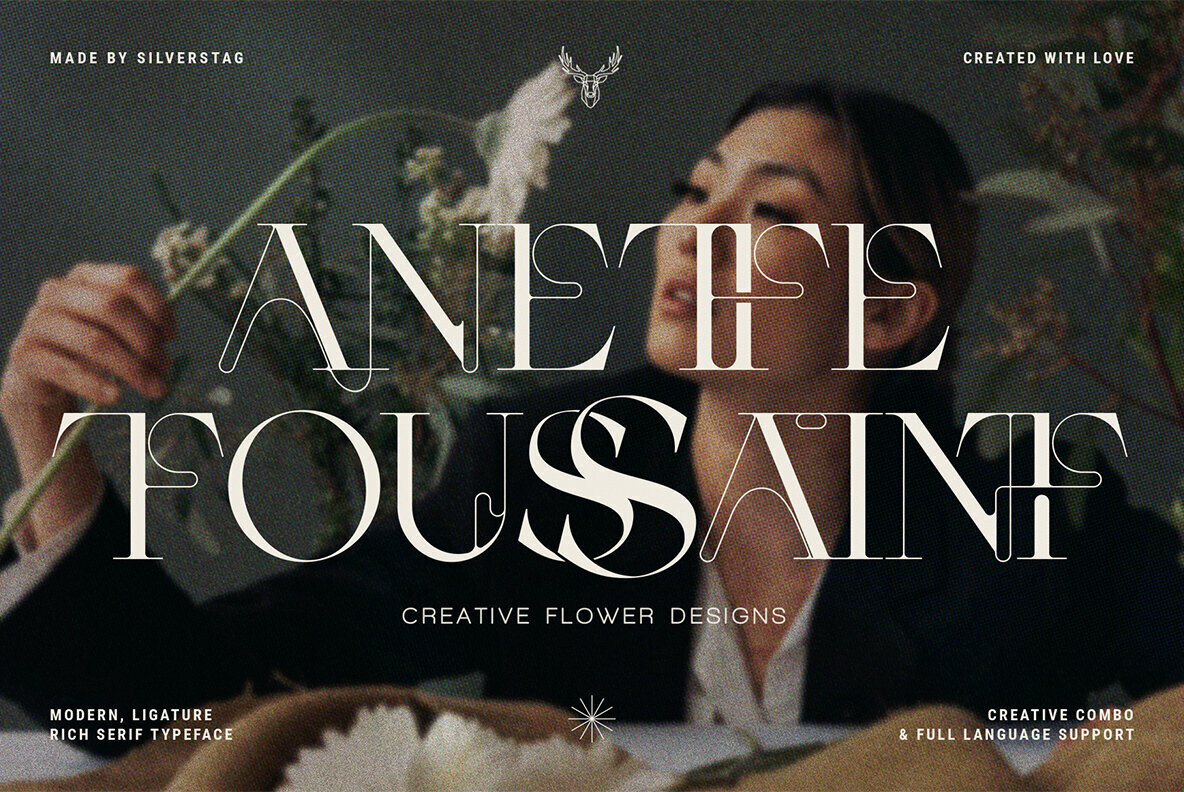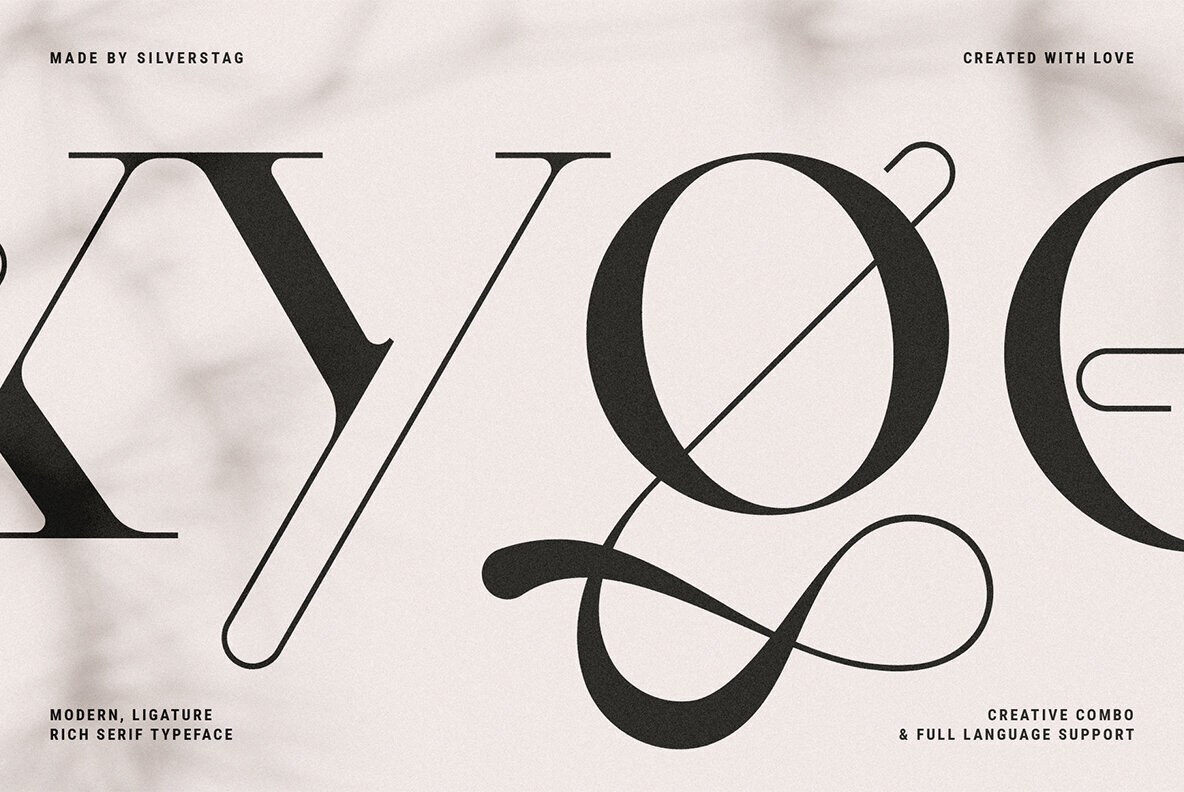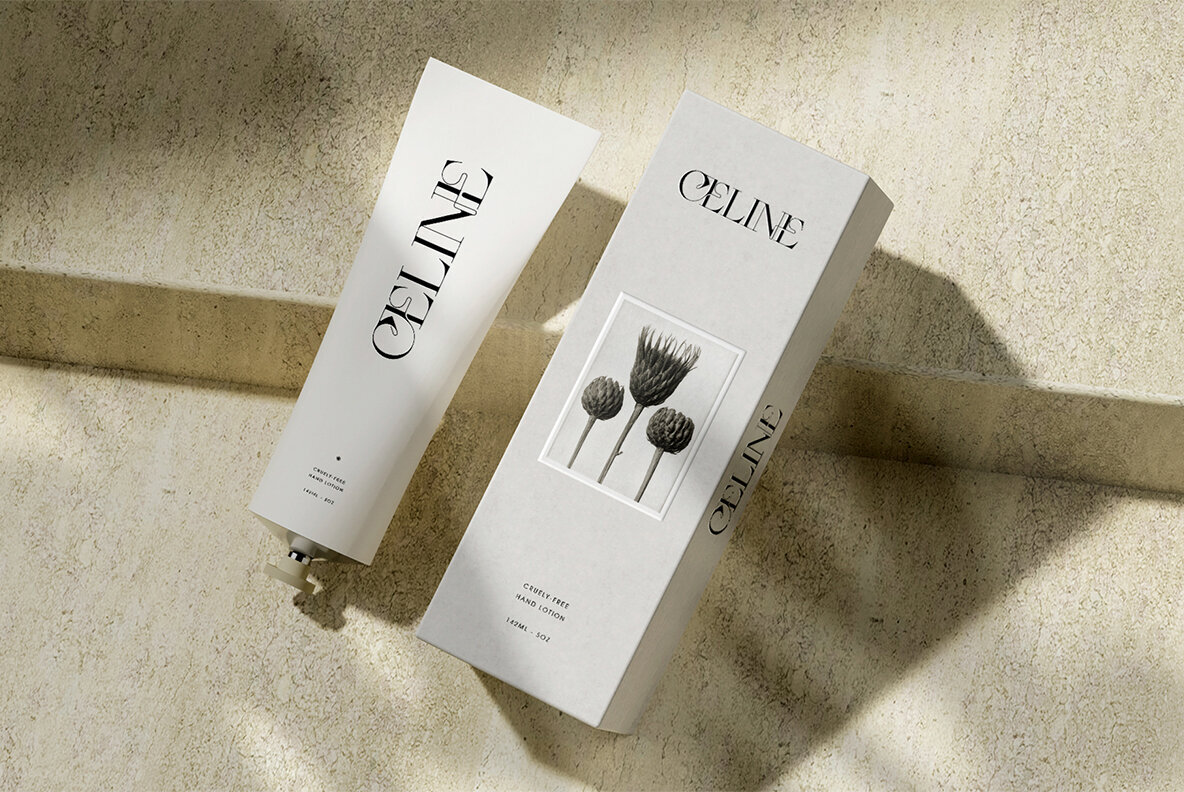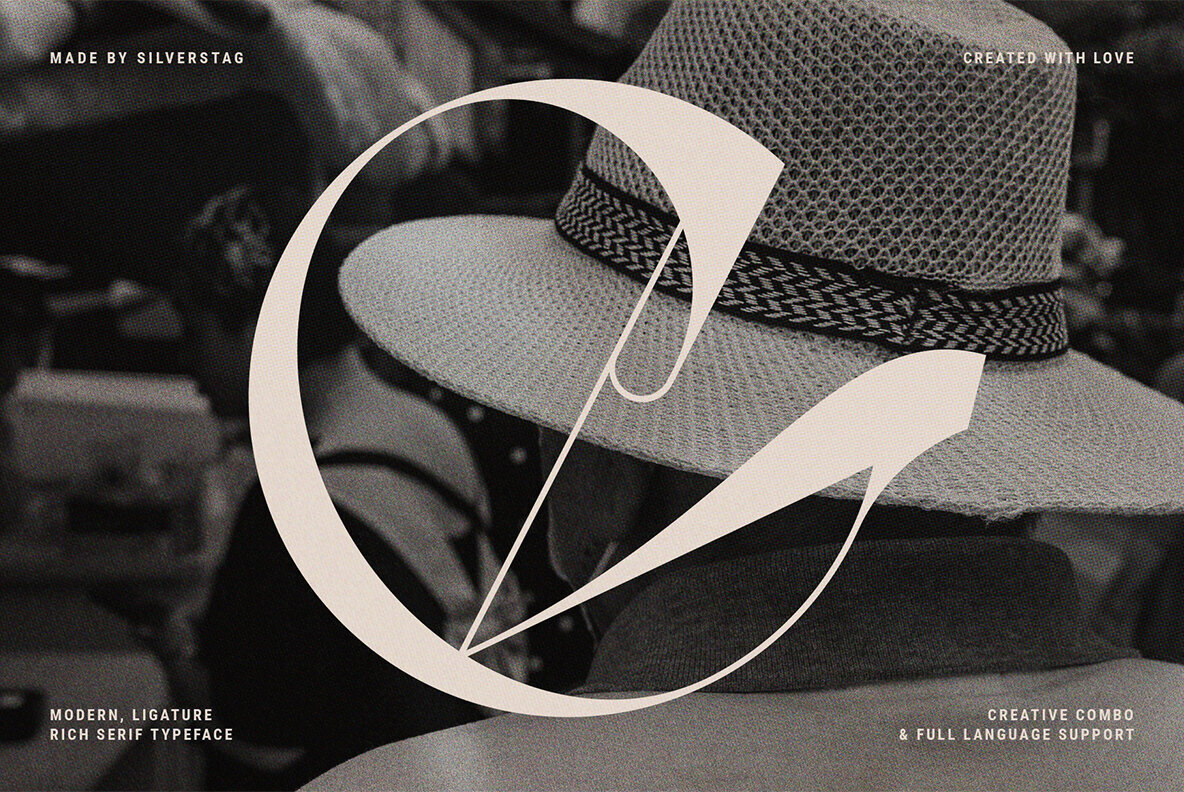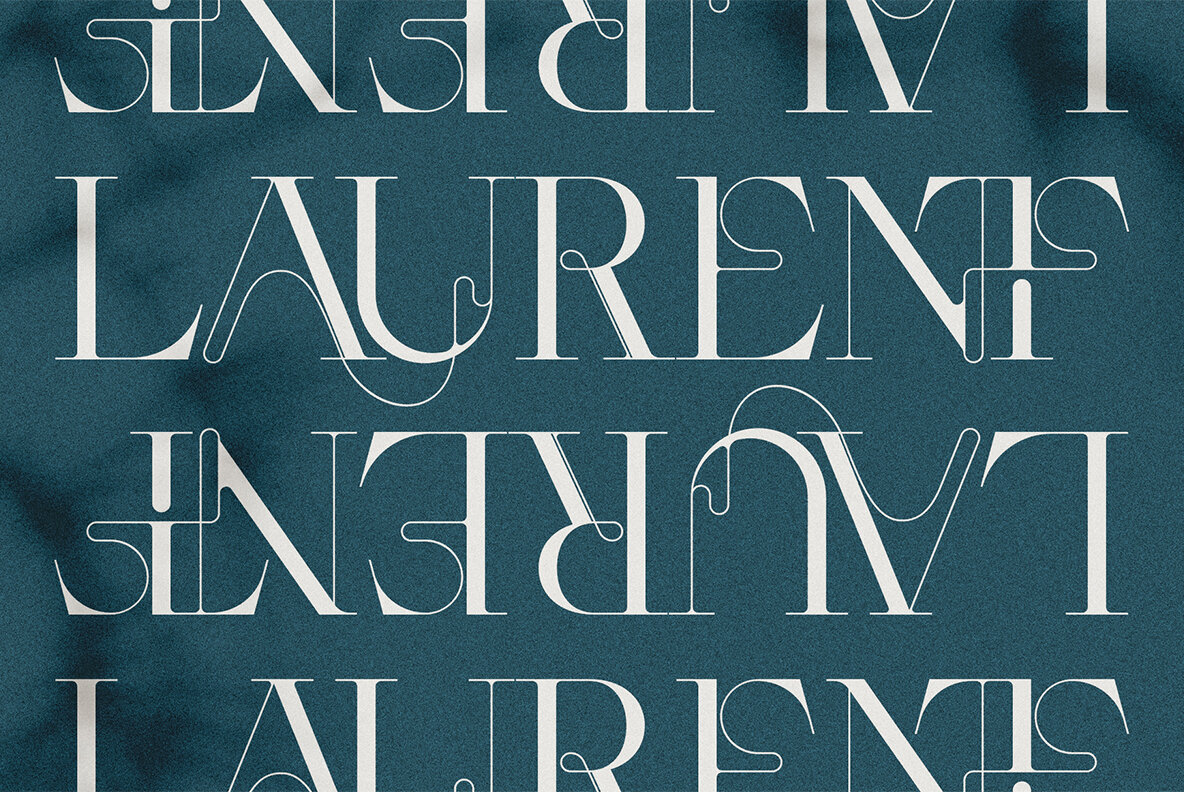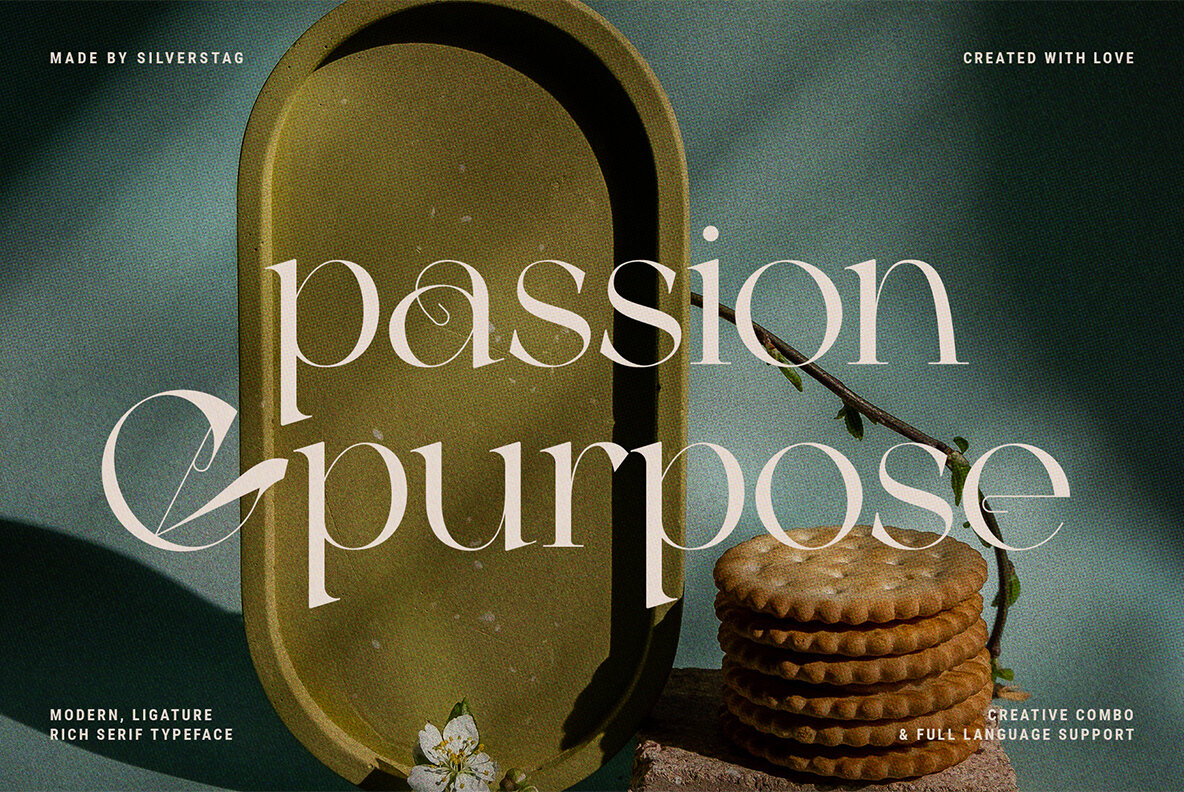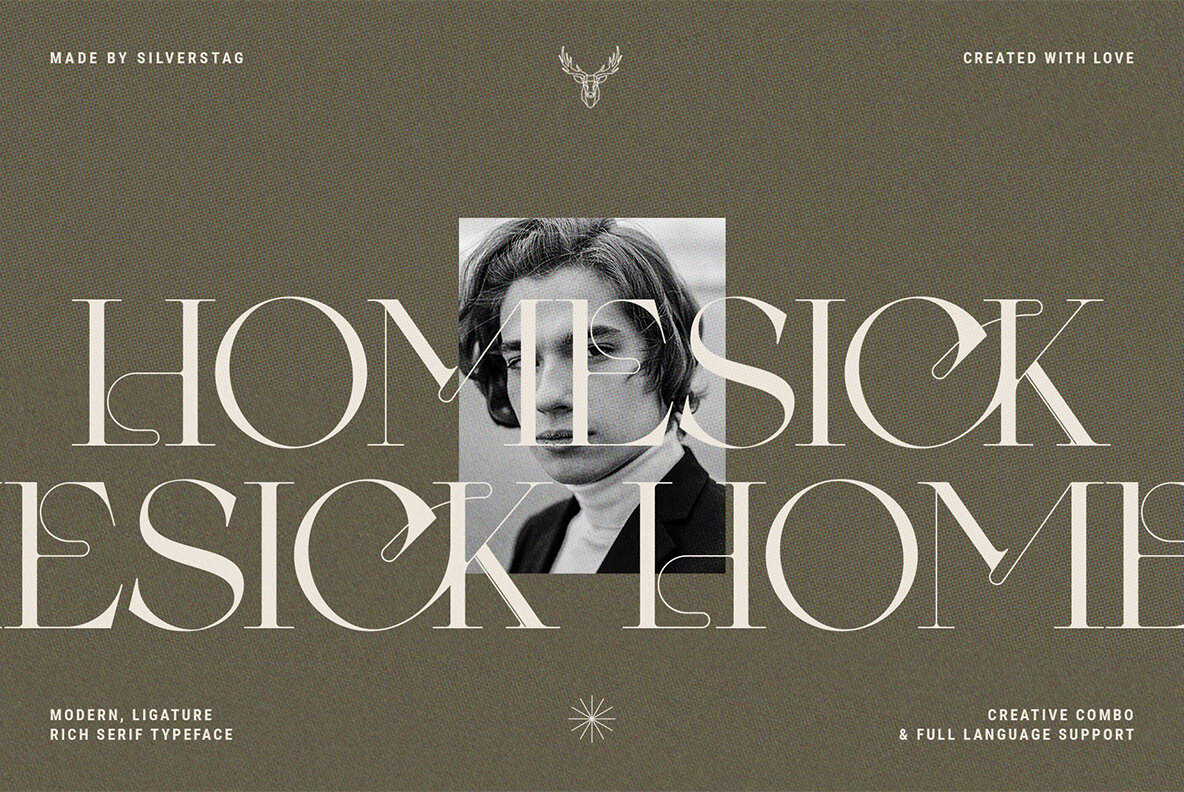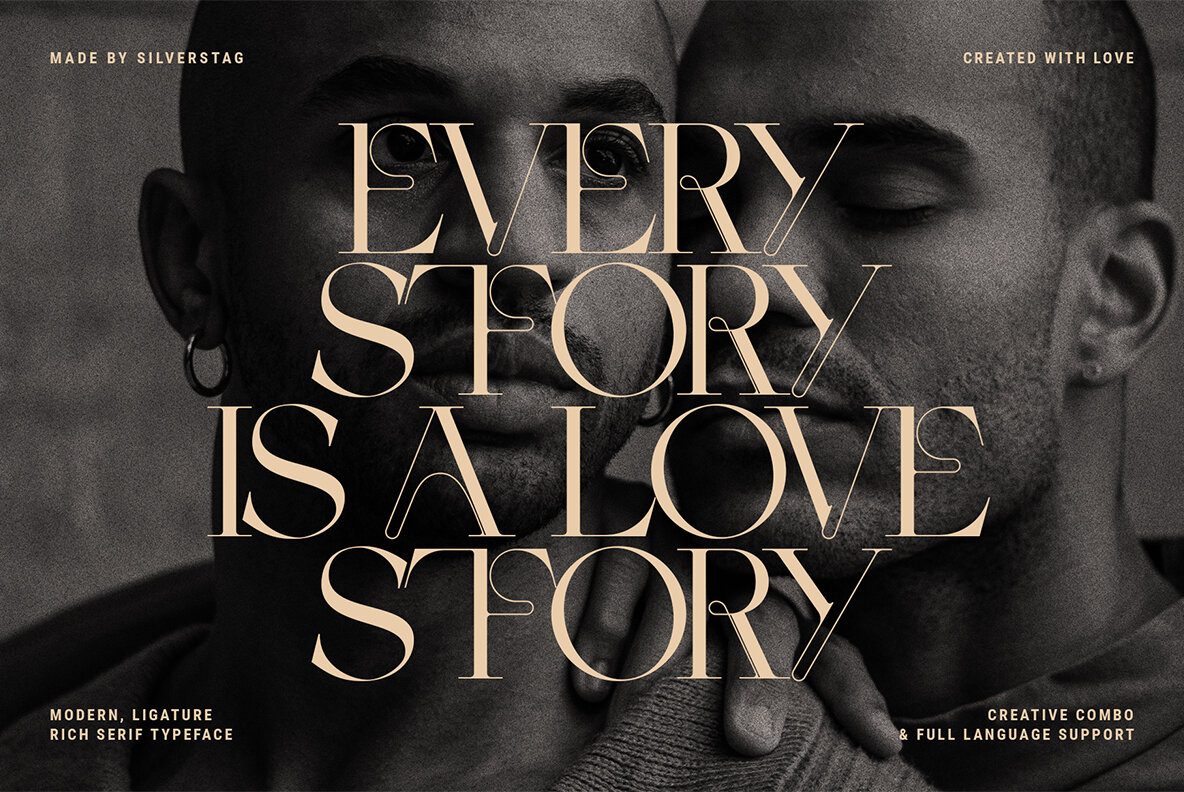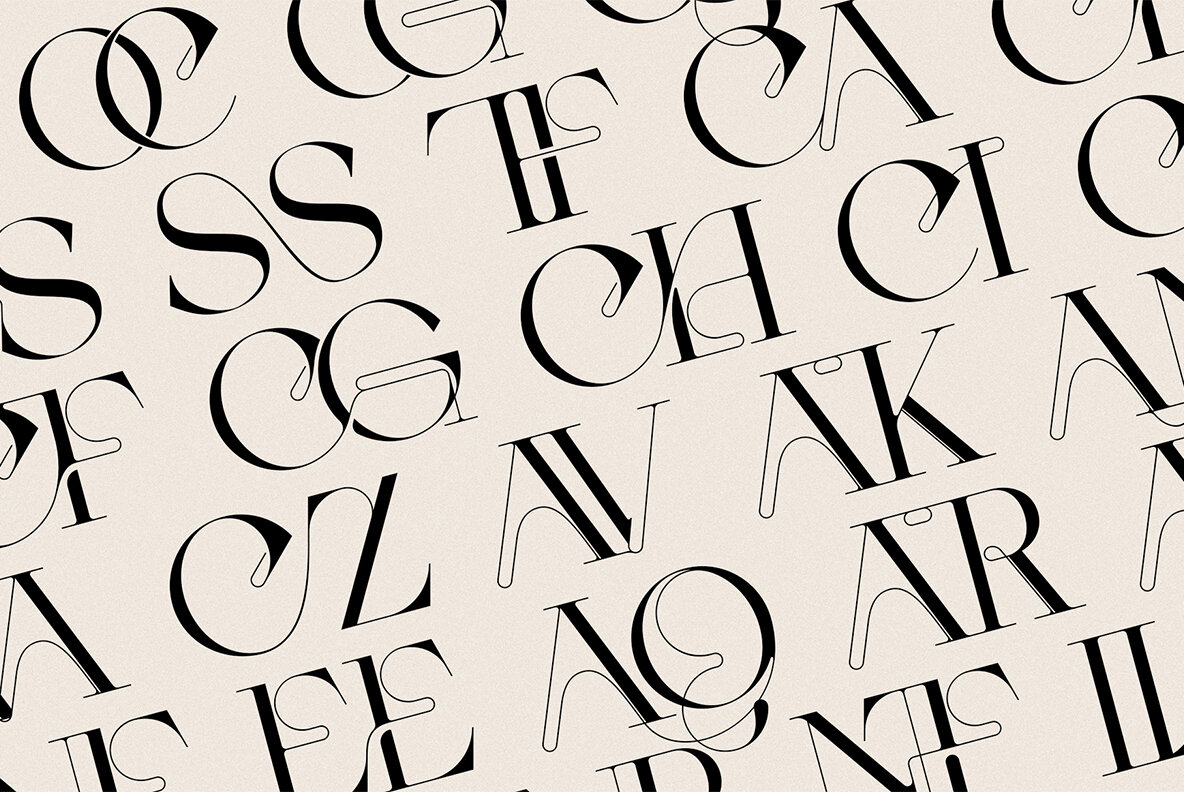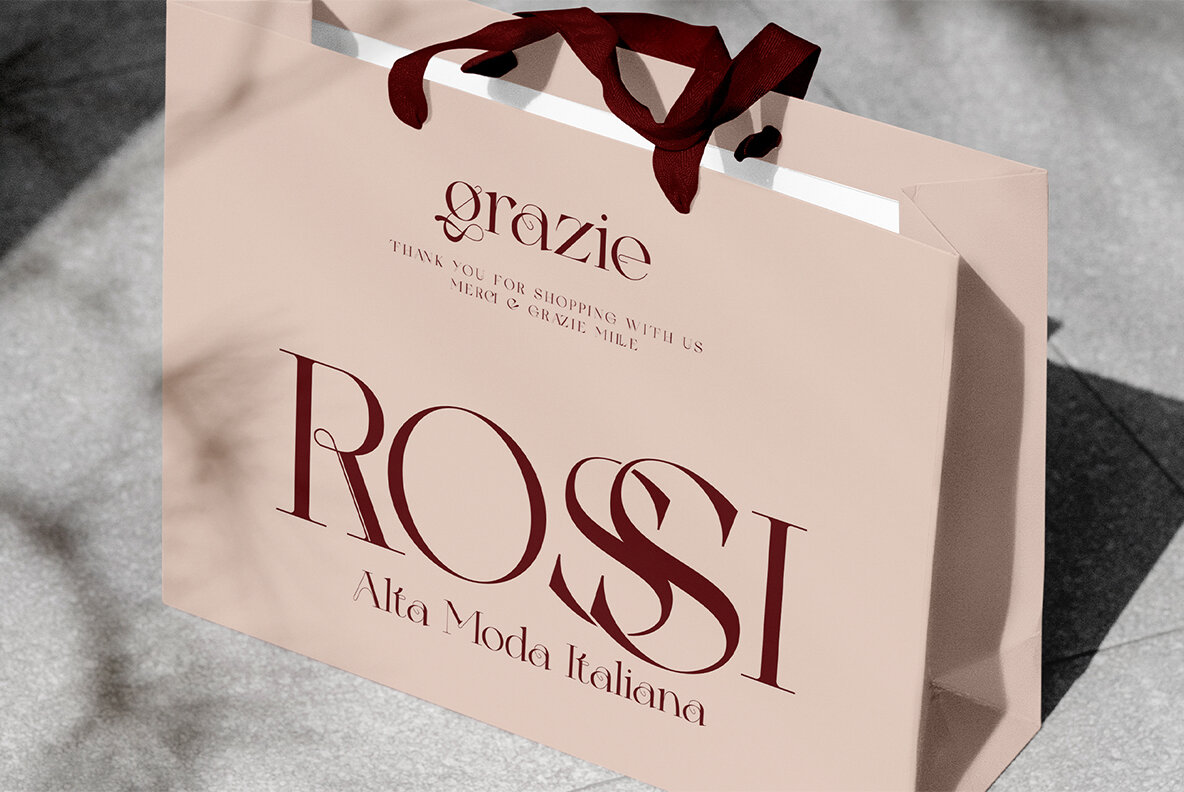
CEZANNE Font
CEZANNE
CEZANNE is a modern & unique serif font. It's inspired by modern art and it comes with over 75 chic ligatures that will work for any kind of a project you might be working on. With contrast lines & curves it will give your design that chic & modern appeal you are looking for. It os perfect for logos, branding, posters, social media & all other creative projects.
It also includes full language support, punctuation, numerals and detailed instructions how to use alternate letters most of the apps on your computer, as well as in Canva.
Over 75 unique ligatures
Numerals & punctuation
Full language support